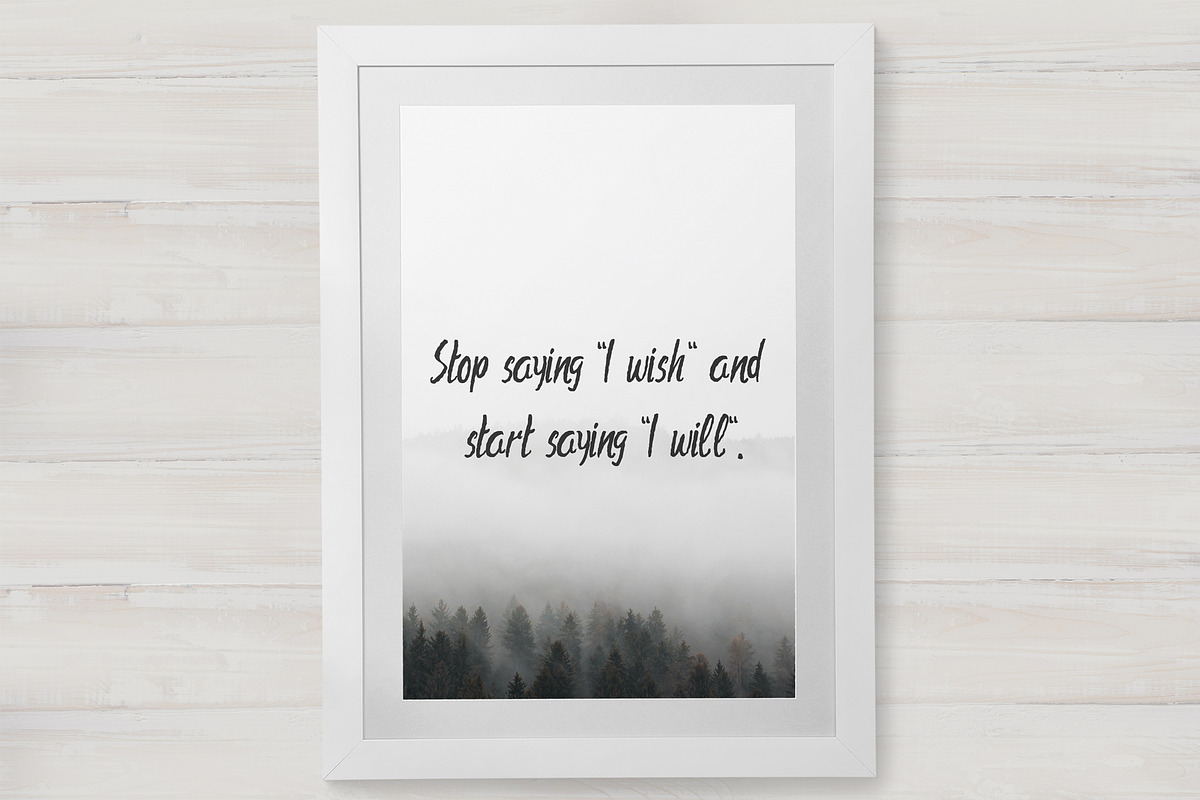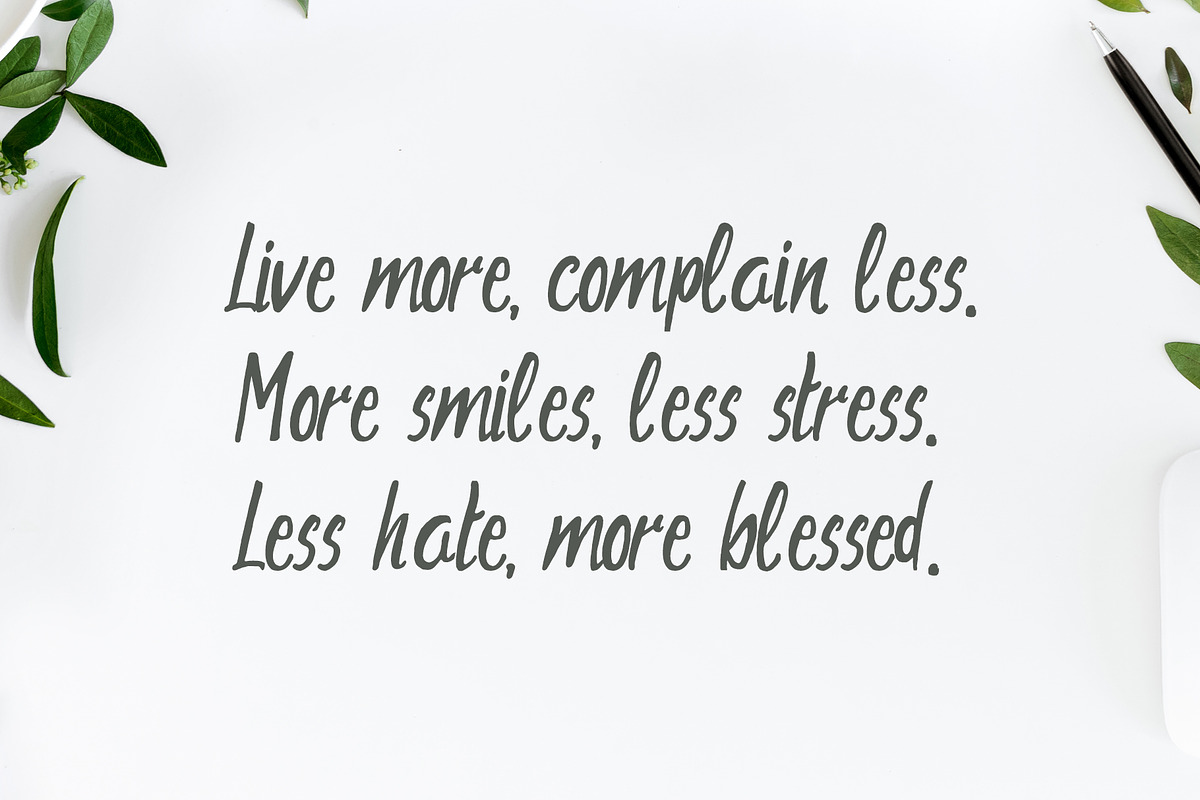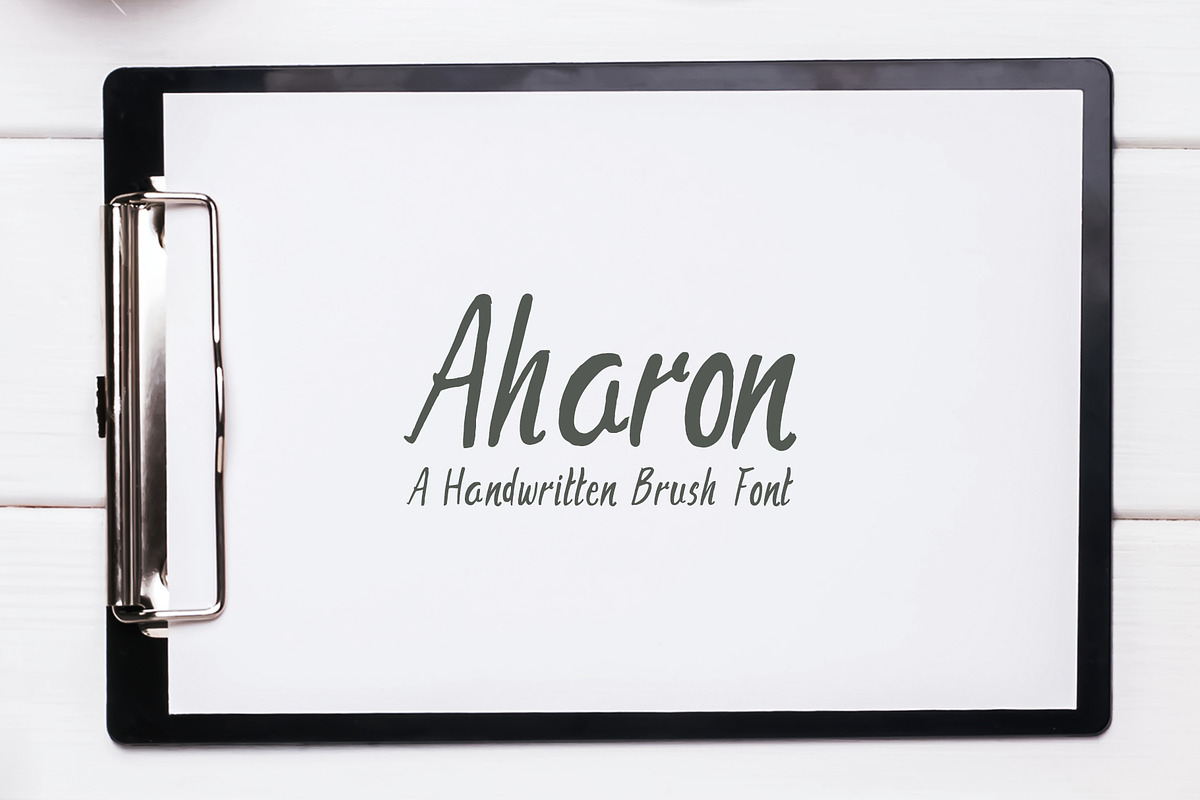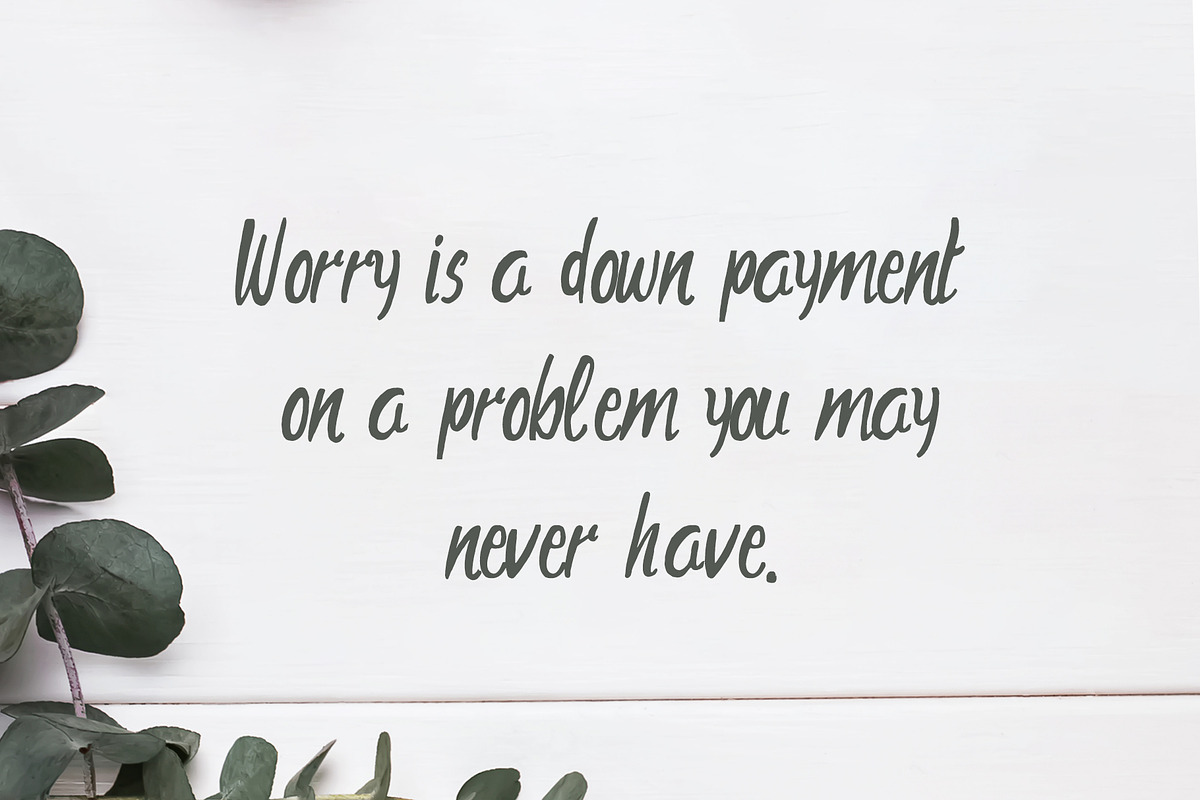
Aharon Handwritten Brush Font
Aharon is a modern straight handwritten brush font. It is a unique handwritten font which makes it perfect for use in all your design related projects like prints, logos, signatures, quotes, badges, labels, headlines, banner, posters, printings, T-shirts, magazines, packaging design, blog, websites, designs, promotional, product, templates, etc.
Why Aharon Handwritten Brush Font is worth a look
Aharon Handwritten Brush Font by Creativetacos fits naturally into Branding, posters, packaging, typography.